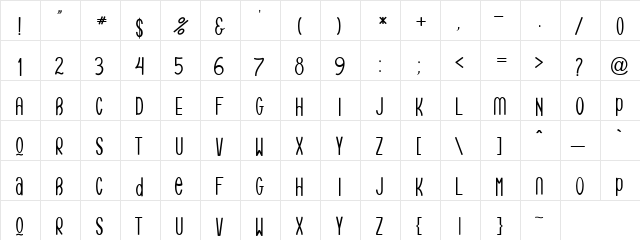
Romario Demo Regular
| Foundry | j-creative |
| Designer | j-creative |
Design Context for Romario Demo Typeface
Romario Demo is a composed and adaptable typeface that performs quietly and consistently across a wide range of design contexts.